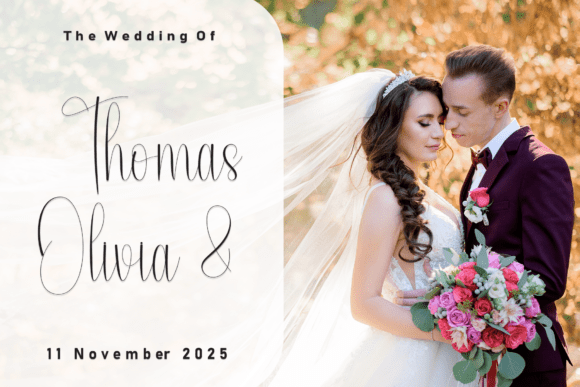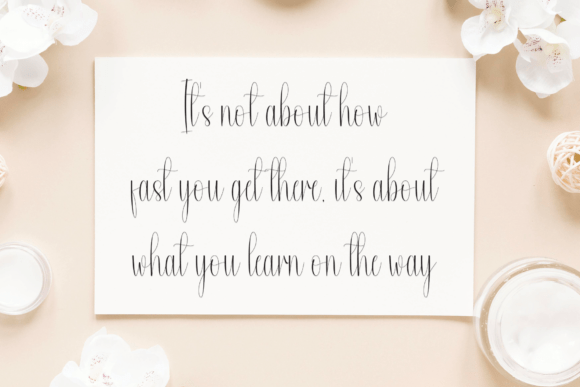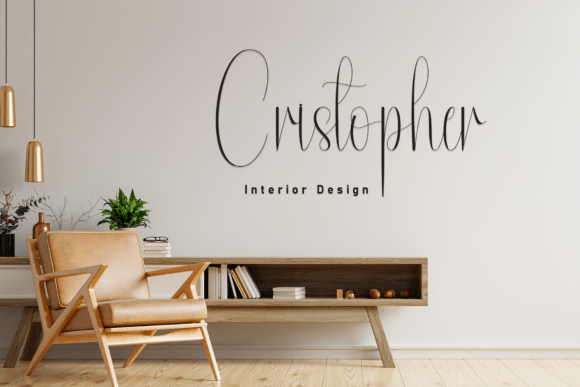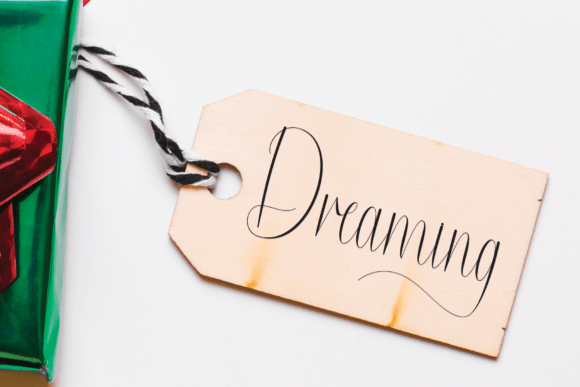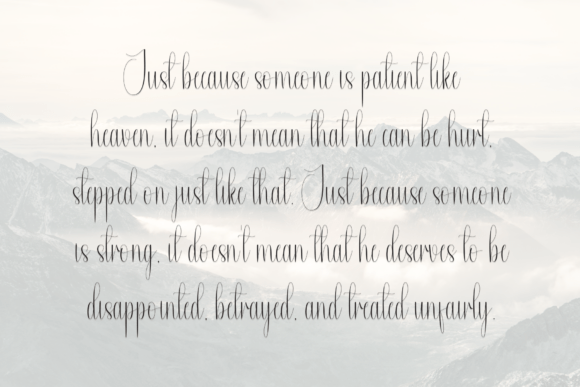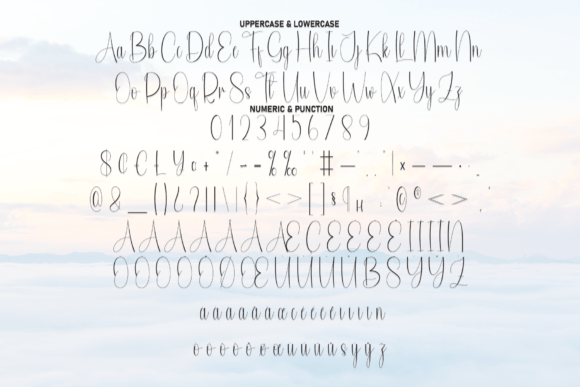
The Magic of Fantasy Font: Adding a Dash of Whimsy to Your Designs
I’ll never forget the time I was working on a wedding invitation project, and my client asked me to create a custom design that exuded warmth and friendliness. I scoured the internet for the perfect font, but nothing seemed quite right – until I stumbled upon Fantasy Font. ✨ This charming display font has a handwritten touch that’s perfect for instilling an air of sweetness and playfulness into your designs.
As a designer, I’m always on the lookout for fonts that can help me create a specific mood or atmosphere. Fantasy Font has become a go-to in my toolkit, and here’s why:
• Effortlessly charming: Fantasy Font has a unique ability to make your designs feel approachable and inviting.
• Highly versatile: Whether you’re working on wedding invitations, greeting cards, or social media graphics, this font adapts seamlessly.
• 🎉 Fun and playful: Fantasy Font adds a dash of whimsy to your designs, making them perfect for creative projects that need a bit of personality.
Of course, no font is perfect, and Fantasy Font has a few quirks:
• 🤔 Limited use in body text: While Fantasy Font shines as a display font, it may not be the best choice for longer blocks of text.
• ⚠️ Some glyphs can be finicky: A few of the more intricate glyphs may require some tweaking to get just right.
The Story Behind Fantasy Font: Designer Inspiration
Fantasy Font was created with the intention of capturing the magic of handwritten script. The designer, inspired by the whimsical world of fantasy and fairytales, set out to craft a font that would bring a touch of wonder to any design. With its charming, personable feel, Fantasy Font is the perfect tool for designers looking to add a dash of personality to their work.
A: Fantasy Font is perfect for creative projects that need a touch of whimsy, such as wedding invitations, greeting cards, or social media graphics.
A: Fantasy Font may not have extensive language support, but it does include a range of glyphs and OpenType features to help you create unique designs.
A: Absolutely! Fantasy Font pairs well with a range of fonts, from elegant scripts to bold sans-serifs. Experiment with different combinations to find the perfect look for your design.
The Magic of Fantasy Font: A Designer’s New Best Friend
I still remember the day I stumbled upon the perfect font for a whimsical wedding invitation project. I had been scrolling through font after font, but nothing seemed quite right – until I met Fantasy Font. Its sweet, friendly, and handwritten style instantly captured the essence of the design, and I knew I had found my new go-to font. In this article, I’ll share my love for Fantasy Font, its unique features, and how to make the most of it in your designs.